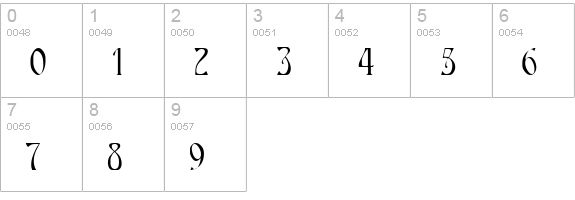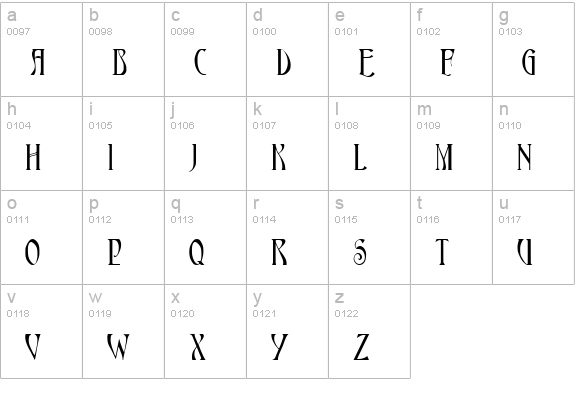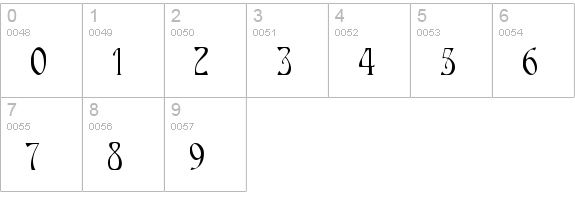
Tedeum Font Details
Tedeum font is a stunning display typeface that exudes elegance and sophistication. Its sleek lines and graceful curves make it perfect for adding a touch of class to any design project. The Tedeum font is versatile and can be used for a wide range of applications, from branding to editorial design. One of the best things about Tedeum font is that it is completely free to download. You can easily access this exquisite typeface at FontsMarket.com, where you can explore a vast collection of high-quality fonts for all your creative needs. Don't miss out on the opportunity to enhance your designs with the timeless beauty of Tedeum font - download it today and let your creativity shine!